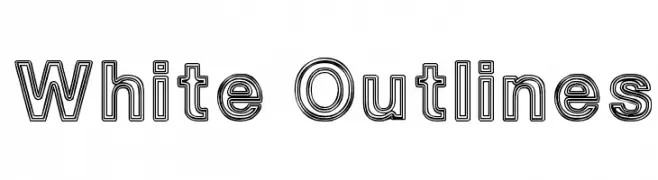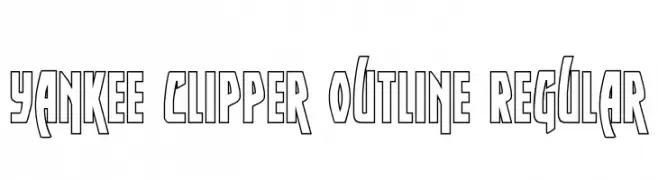
A bold, outlined font with a geometric and angular design.
A futuristic, geometric font with bold, outlined characters and a science fiction vibe.
A playful, outlined font with rounded, slanted characters for a lively look.
A modern, bold sans-serif font with a unique outlined style.
A modern, condensed font with a clean and streamlined appearance.
A playful, outlined font with a hand-drawn, shadow-like appearance.
A modern, geometric font with a double-line, outlined style.
A bold, outlined font with angular, slanted characters for a dynamic look.